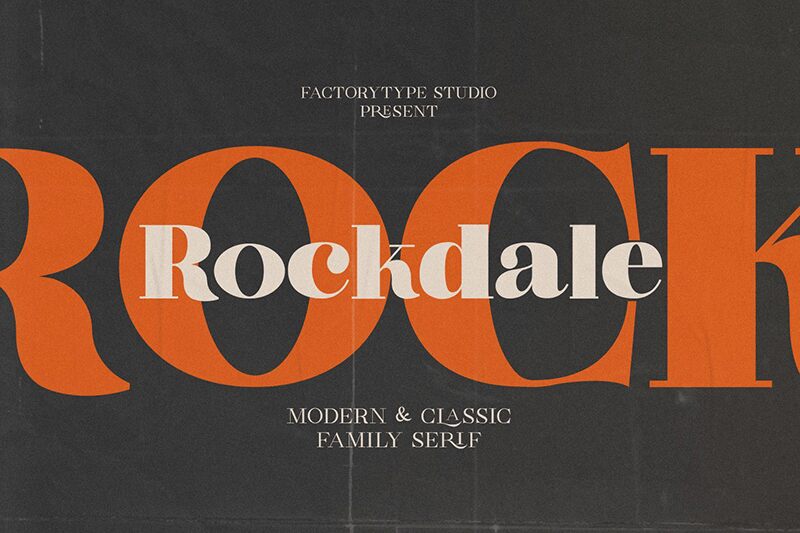
Rockdale font by FactoryType is a luxurious serif font made up of bold curves that are modern and sophisticated. It carries an immediate luxurious vibe that makes it desirable especially for brand designs. Even without going in detail on the separate letters, this elegant typeface manages to retain its shine and attract even more attention.